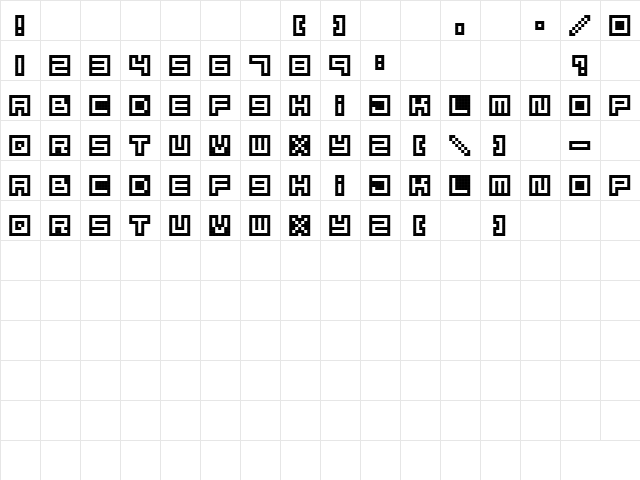
MizuFontAlphabet Regular
| Foundry | The Risen Realm Studios |
| Designer | Mizu |
Design Context for MizuFontAlphabet Typeface
MizuFontAlphabet takes a measured approach to typography — its balanced proportions and neutral character make it a reliable workhorse for both digital and print work.